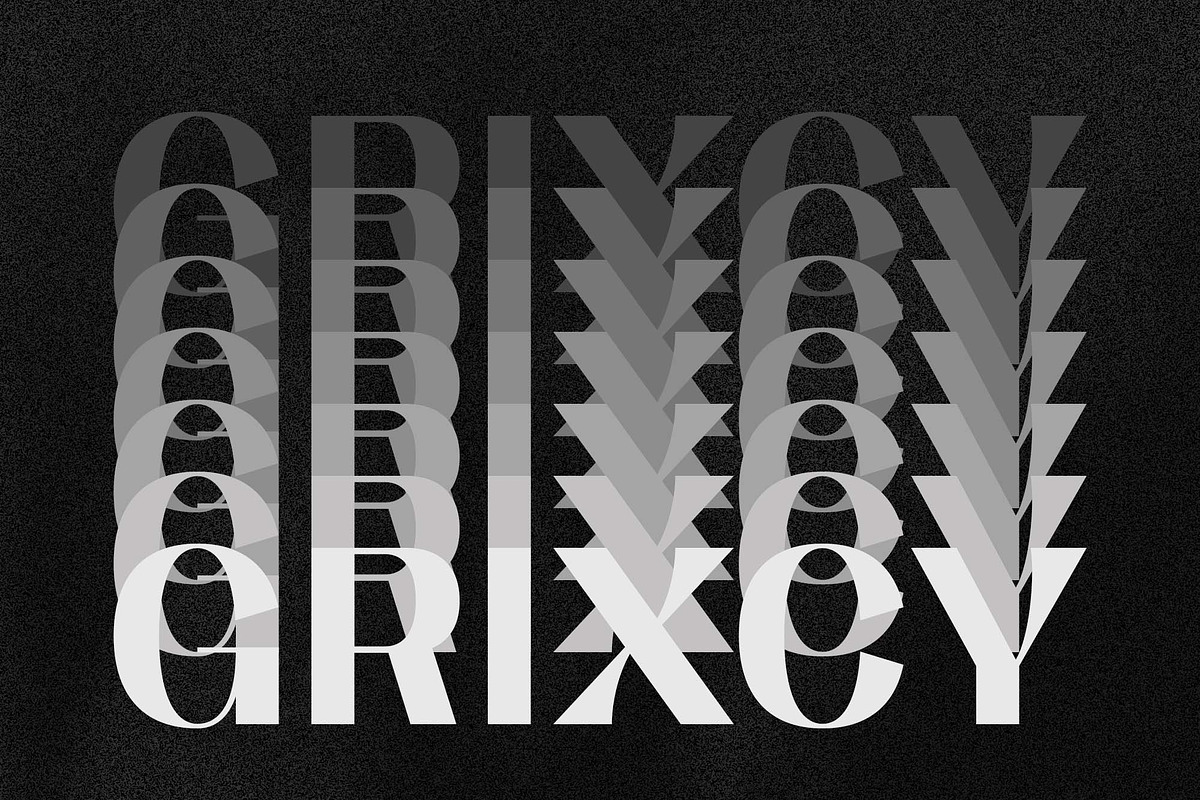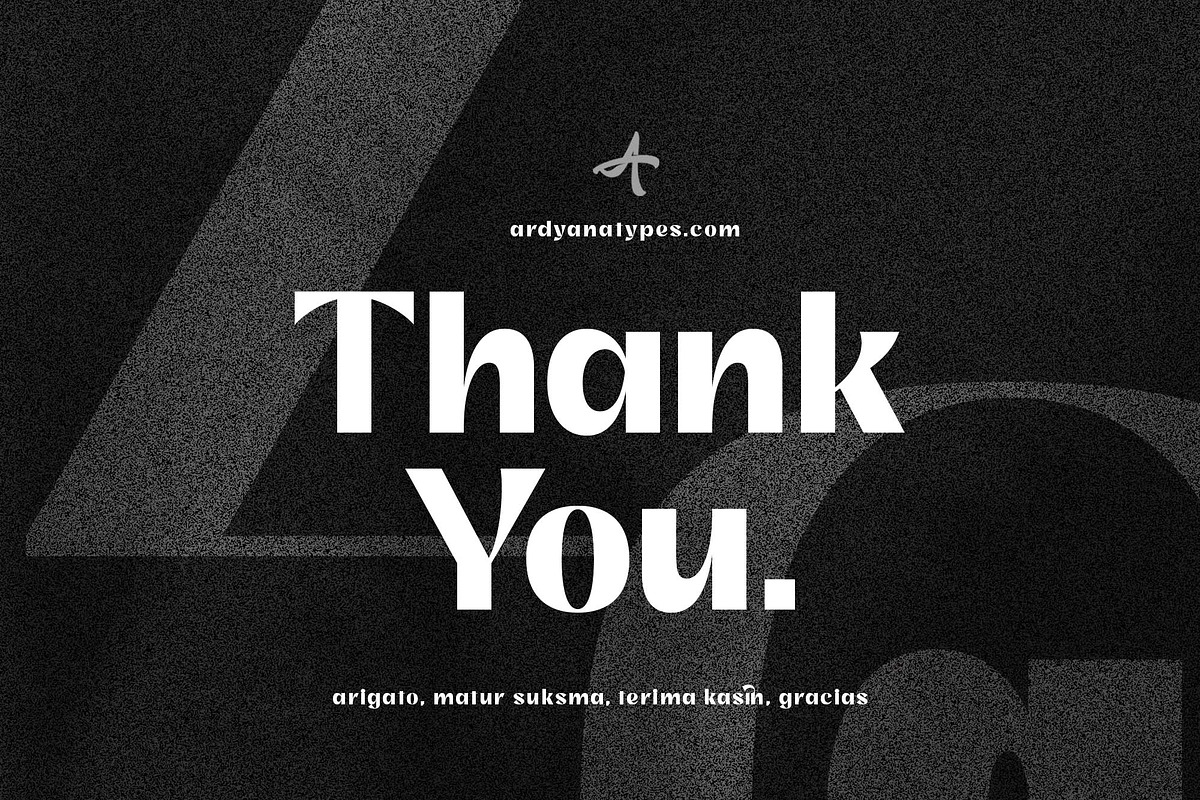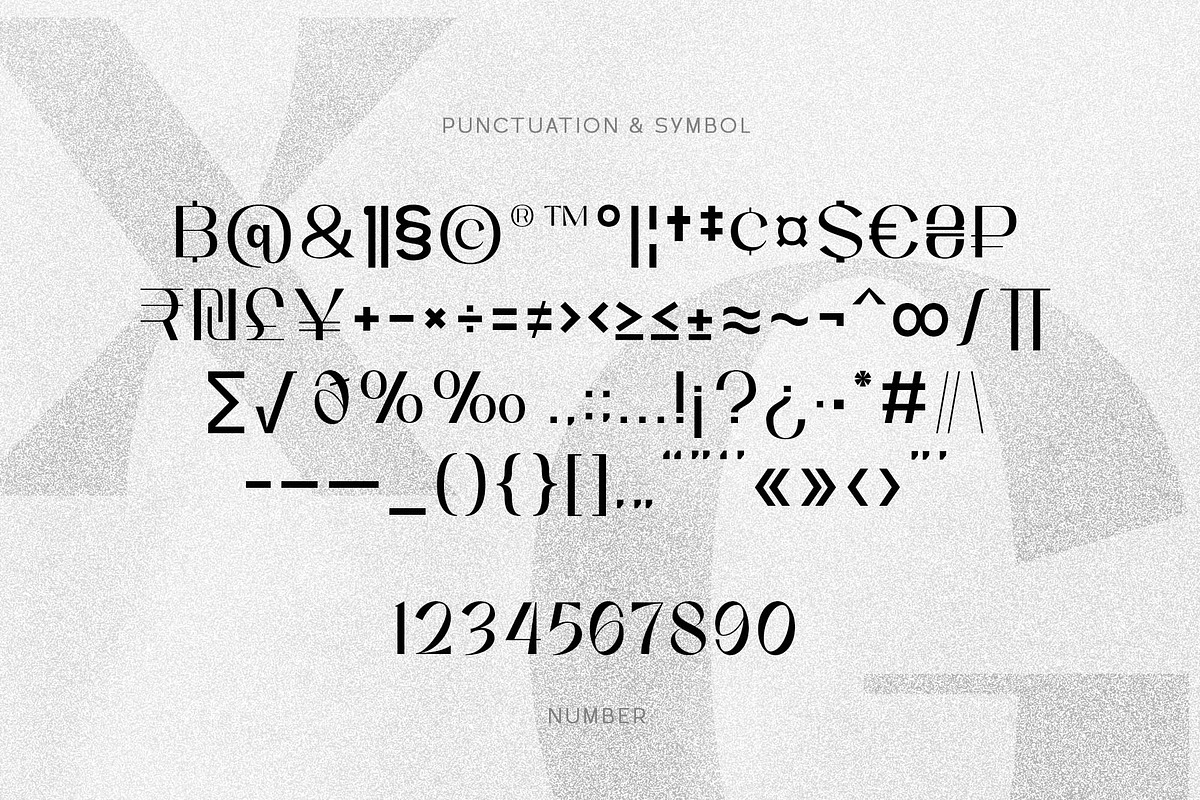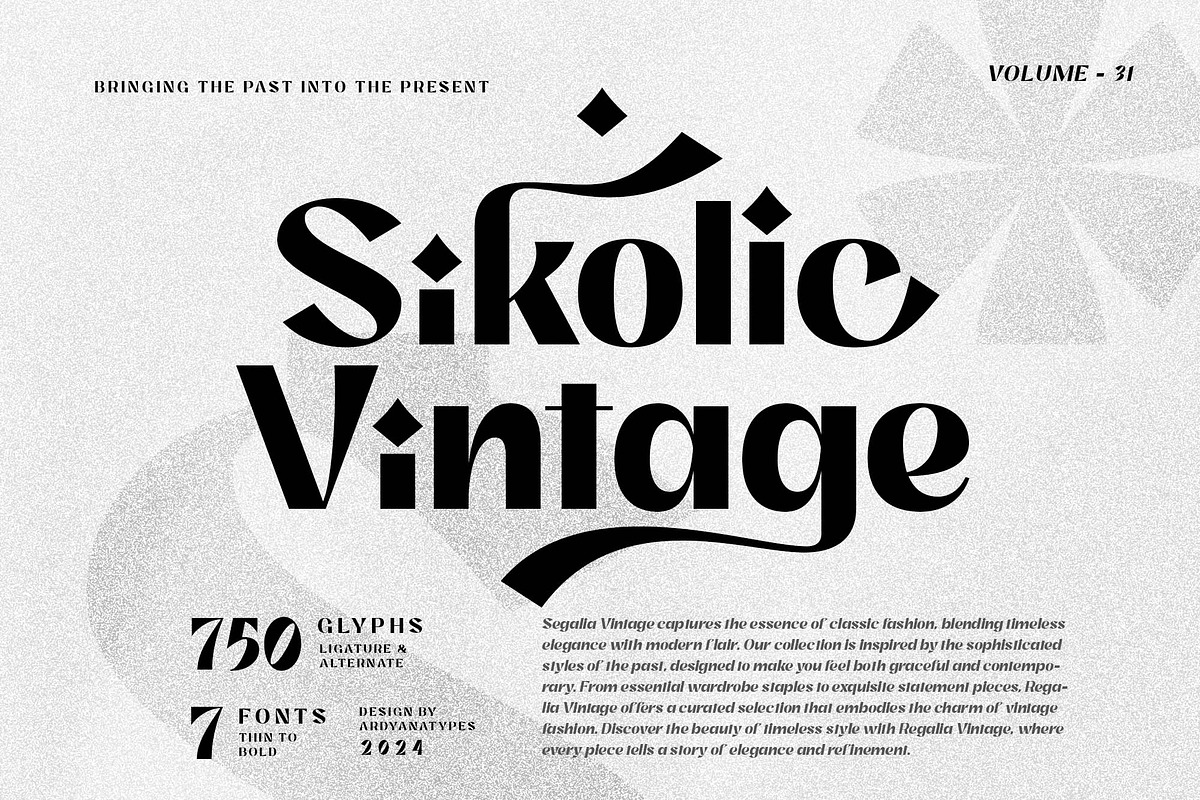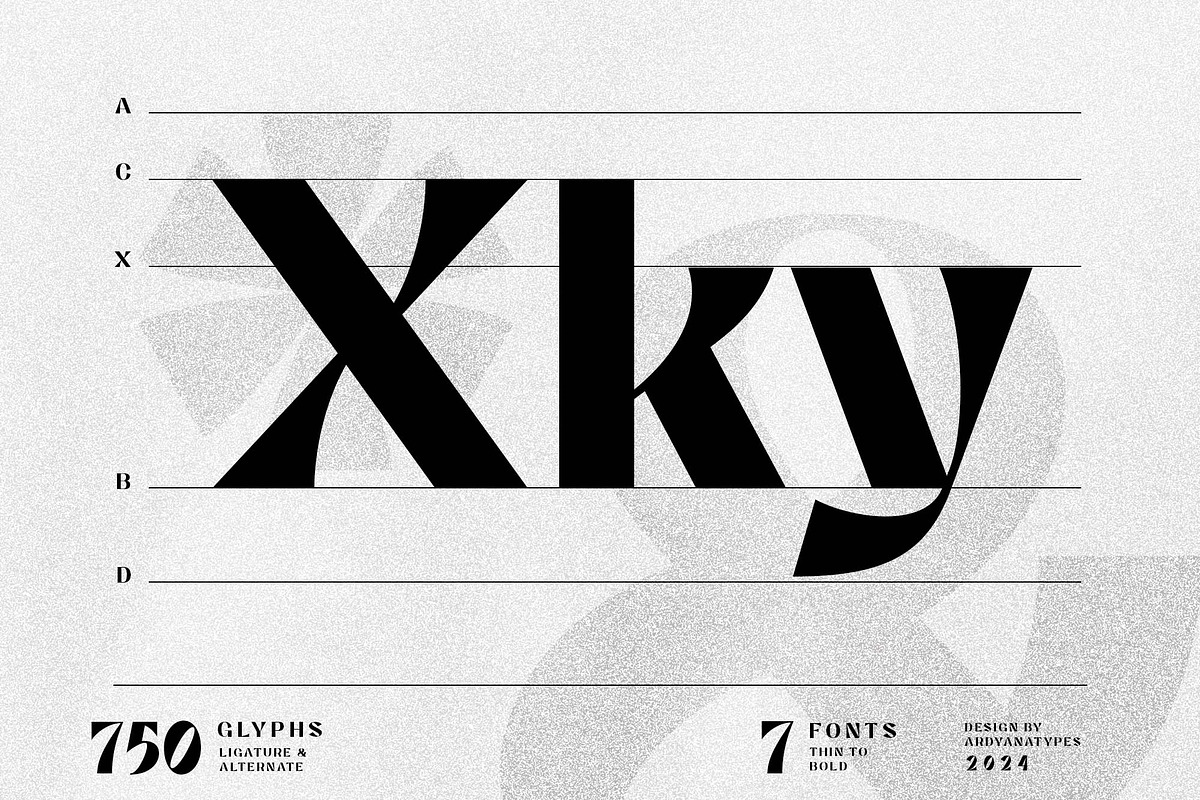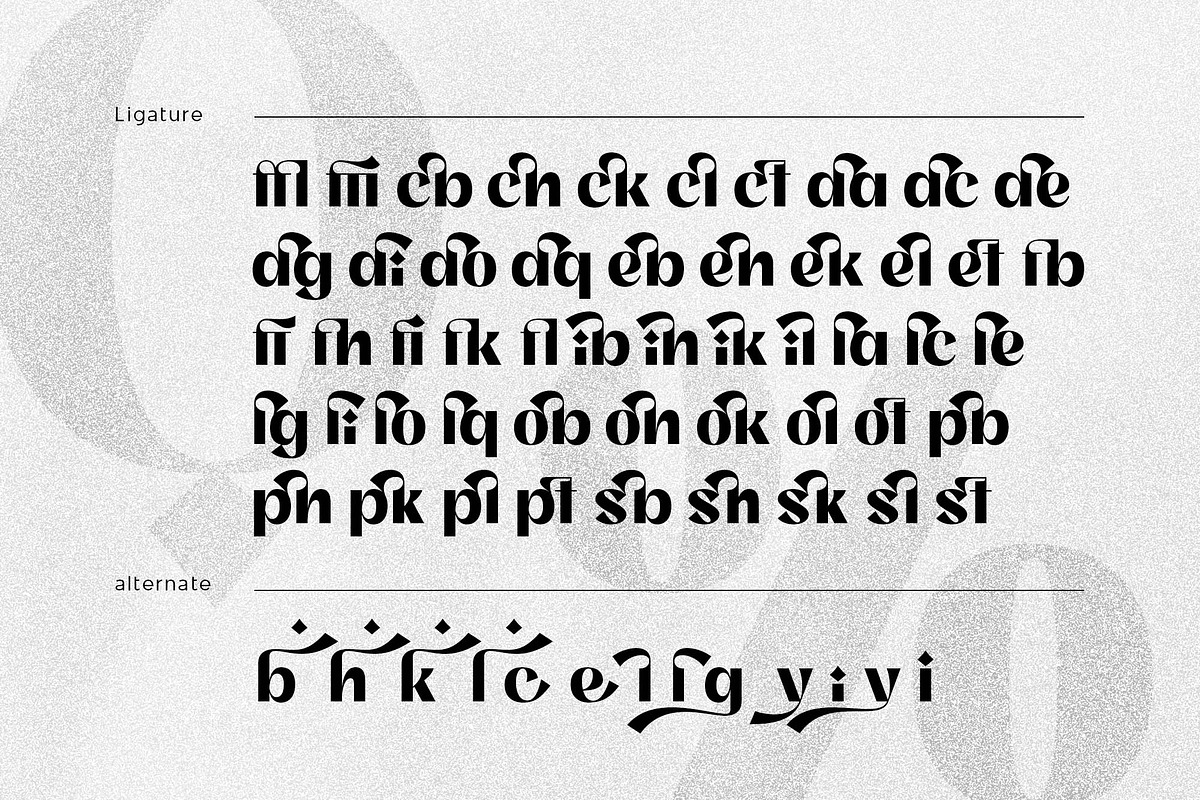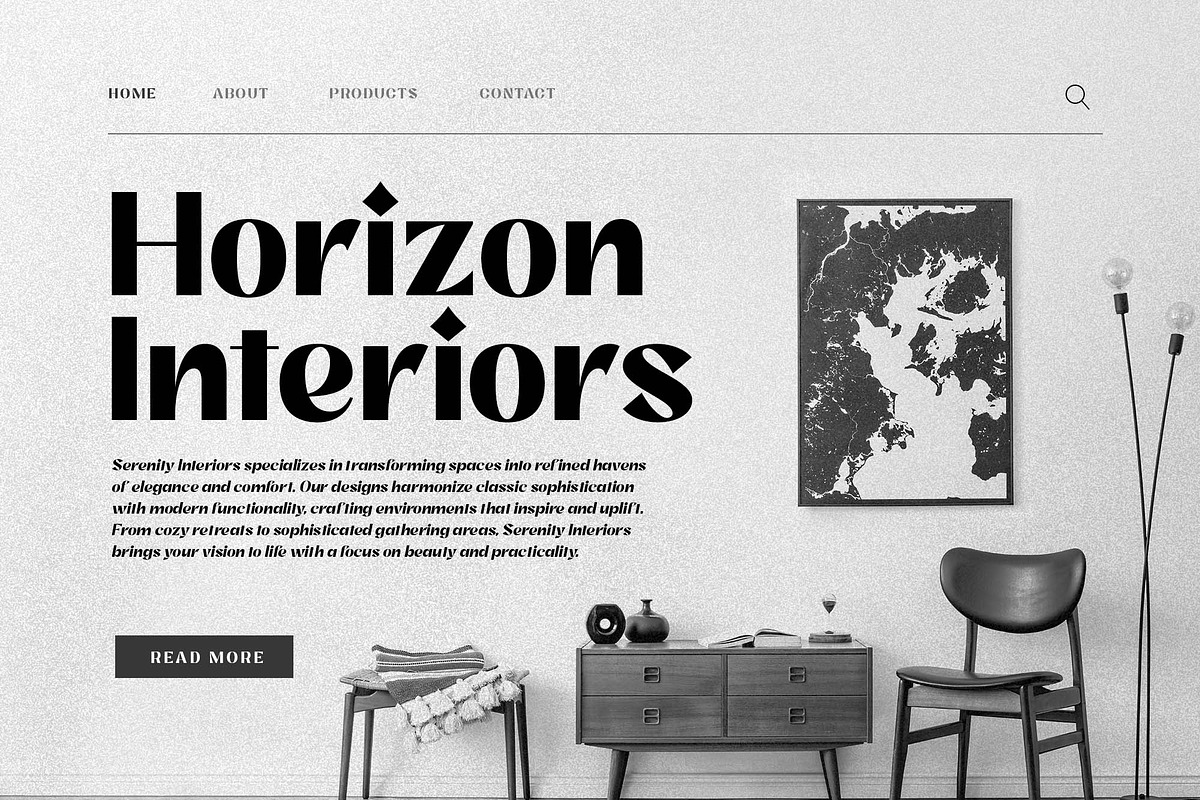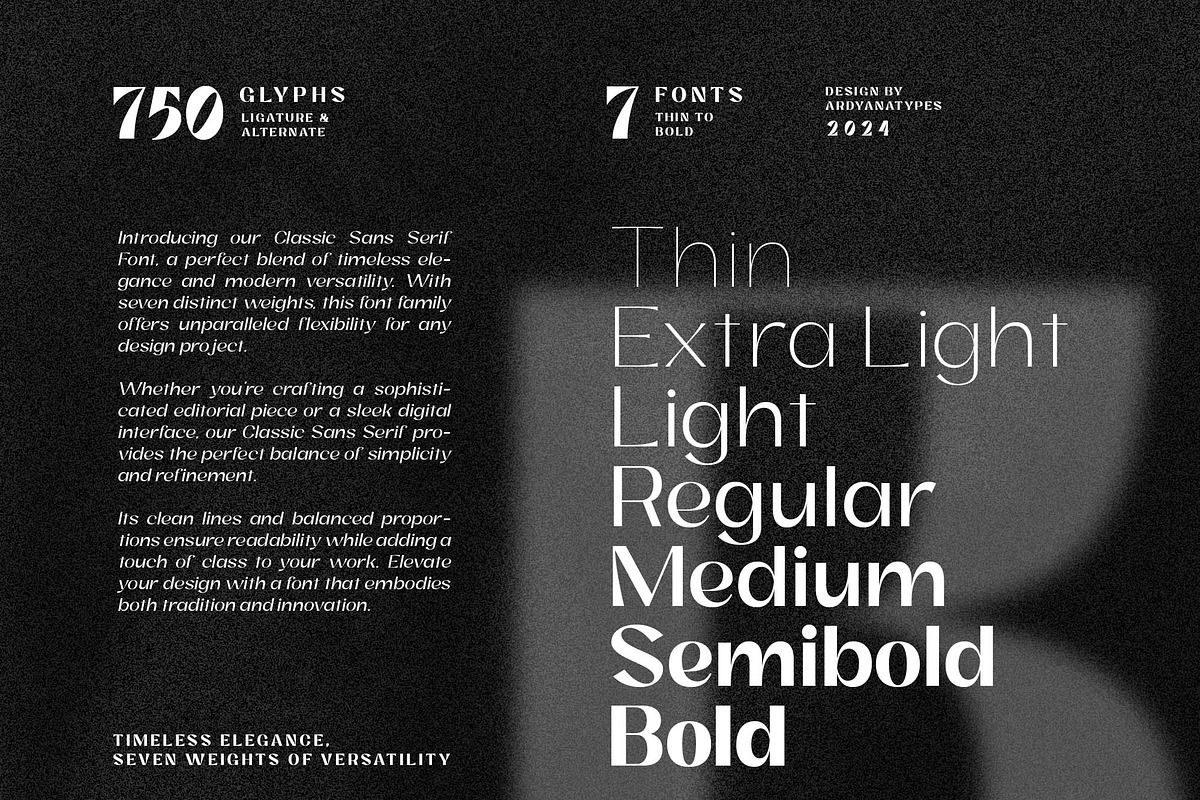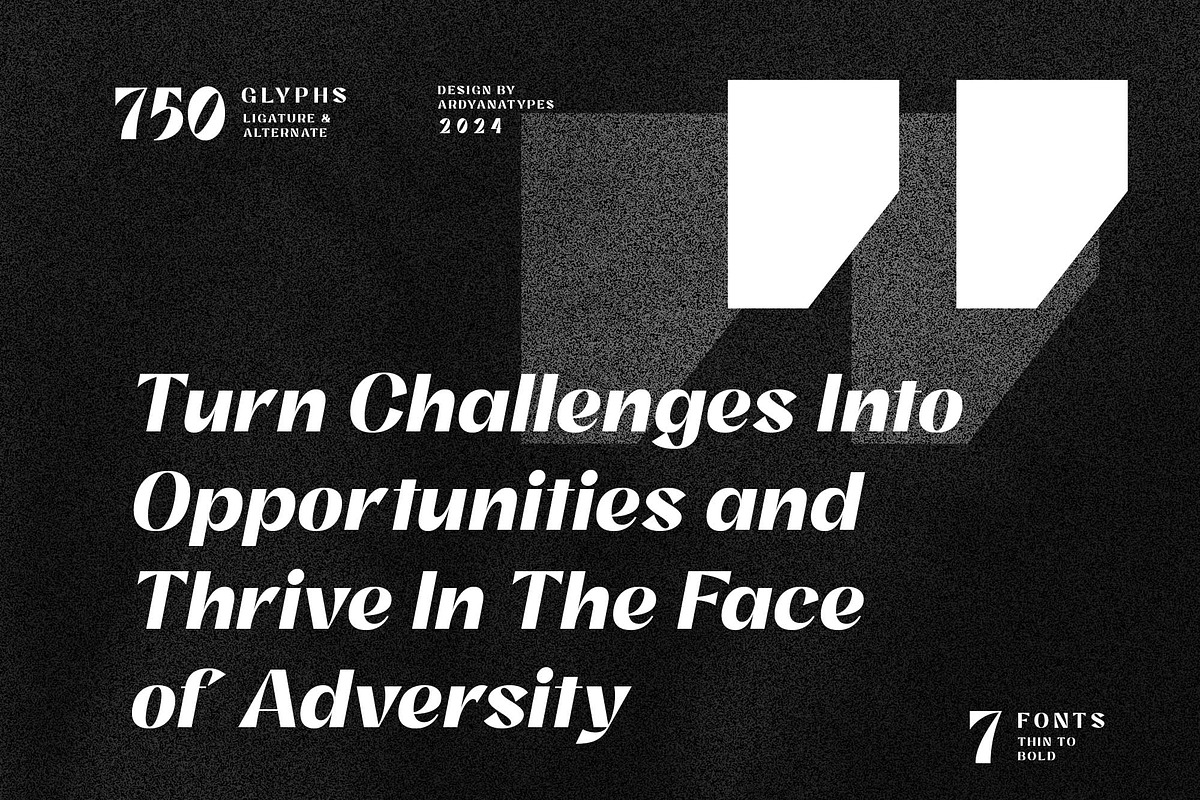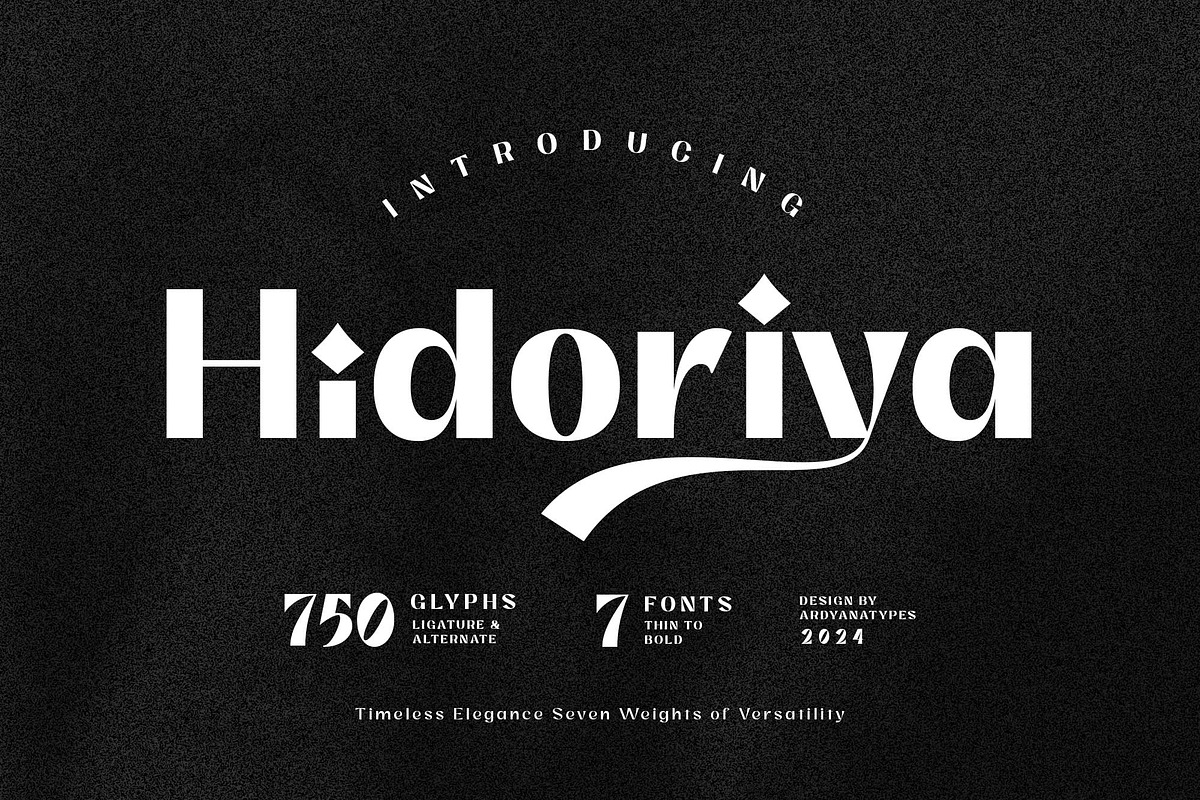
Hidoriya
Hidoriya is a modern font that combines the elegance of classic calligraphy with a touch of contemporary minimalist style. Inspired by unique and delicate calligraphy movements, Hidoriya delivers a luxurious yet simple feel in every stroke of its letters.
Equipped with multilingual support for various languages, beautifully flowing ligatures, and alternates that offer artistic variety, Hidoriya is designed to provide flexibility in your design projects. Ideal for branding, logos, editorial work, and other elegant typography, Hidoriya is the perfect choice for those seeking a modern look while staying rooted in classic calligraphic aesthetics.
With a perfect balance between clean style and sophisticated character, Hidoriya is ready to become an essential element in your creative work.
A – Z Character Set
a – z Characters set
Numerals & Punctuations
Ligatures & Alternates